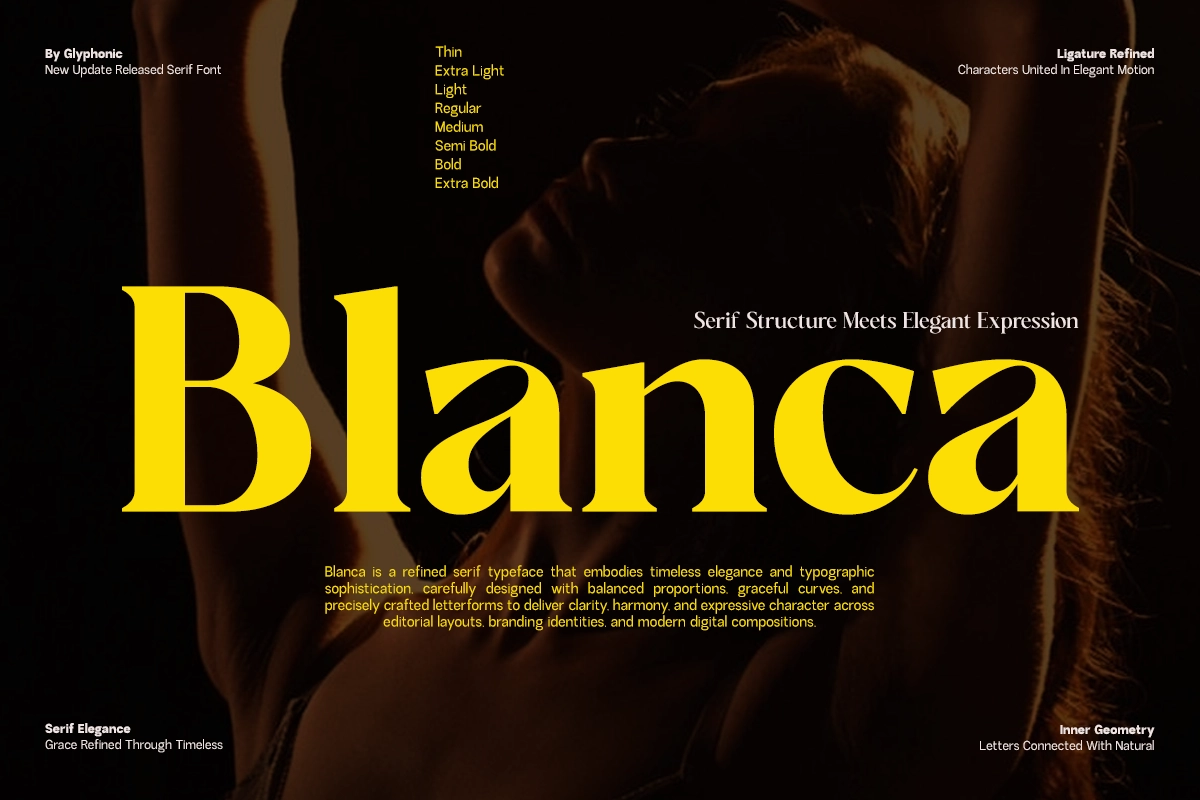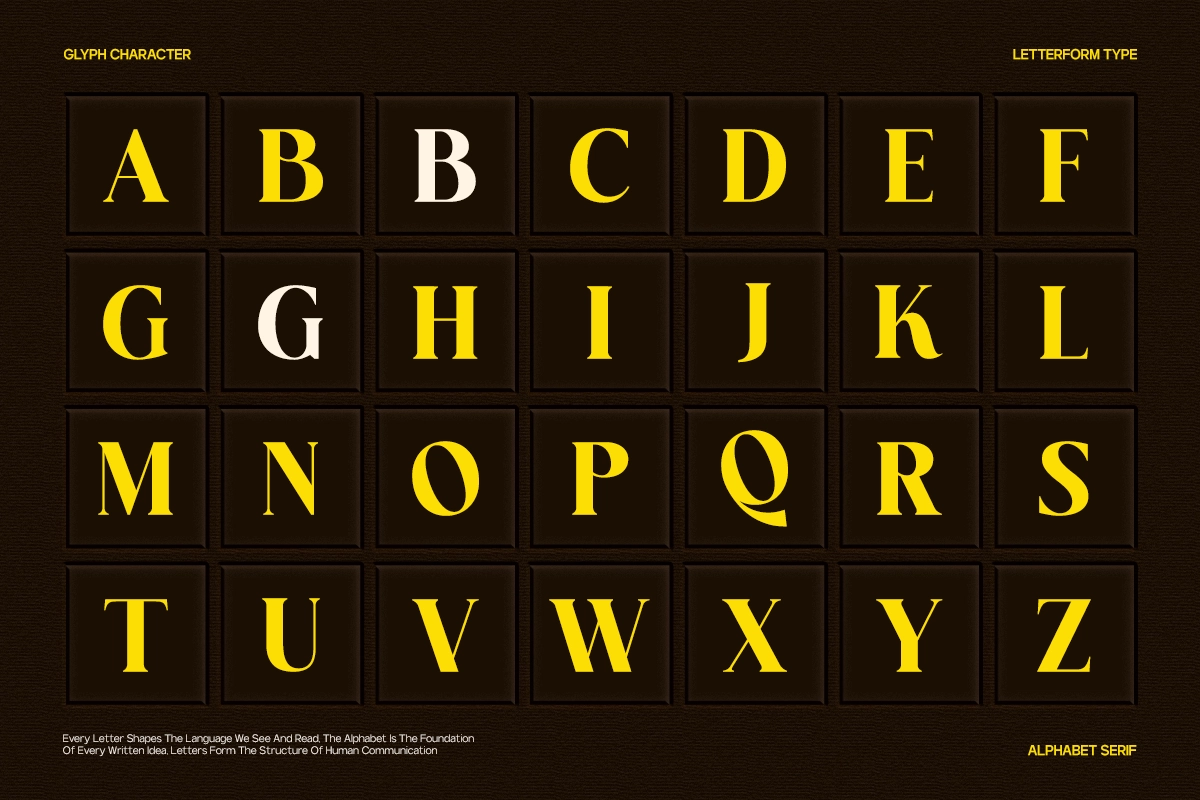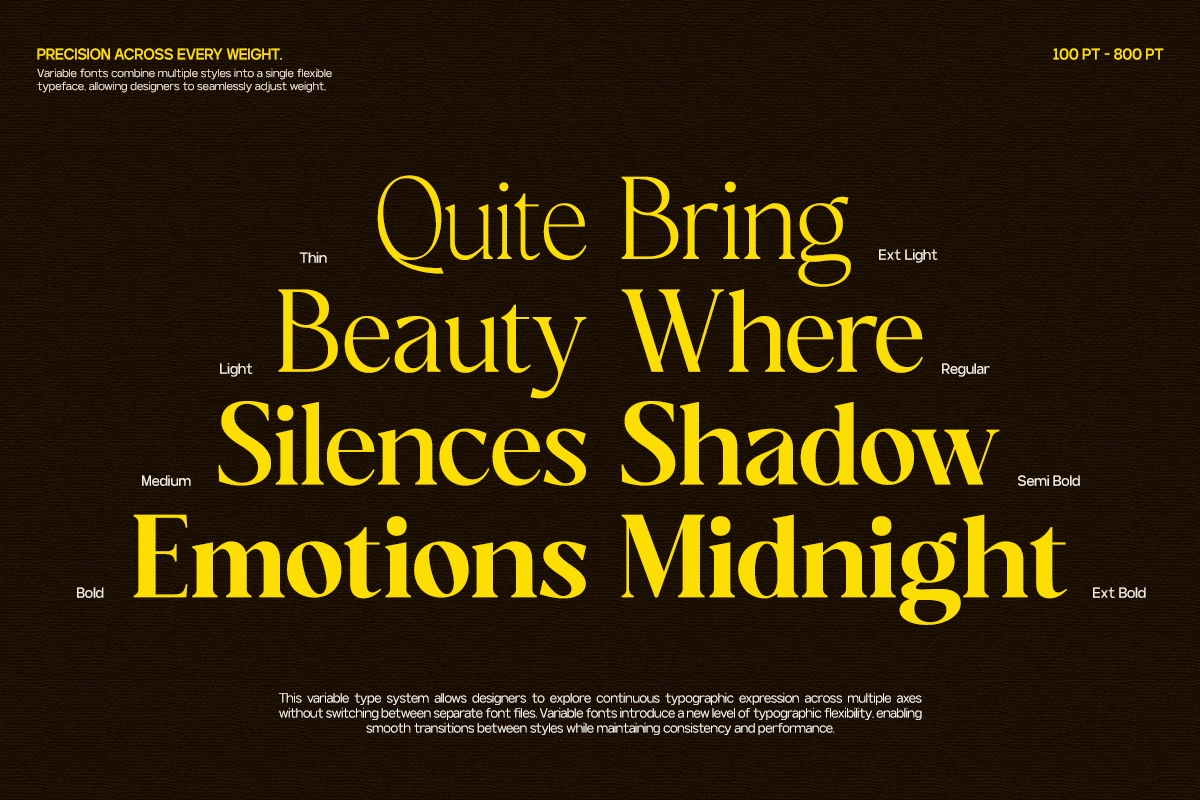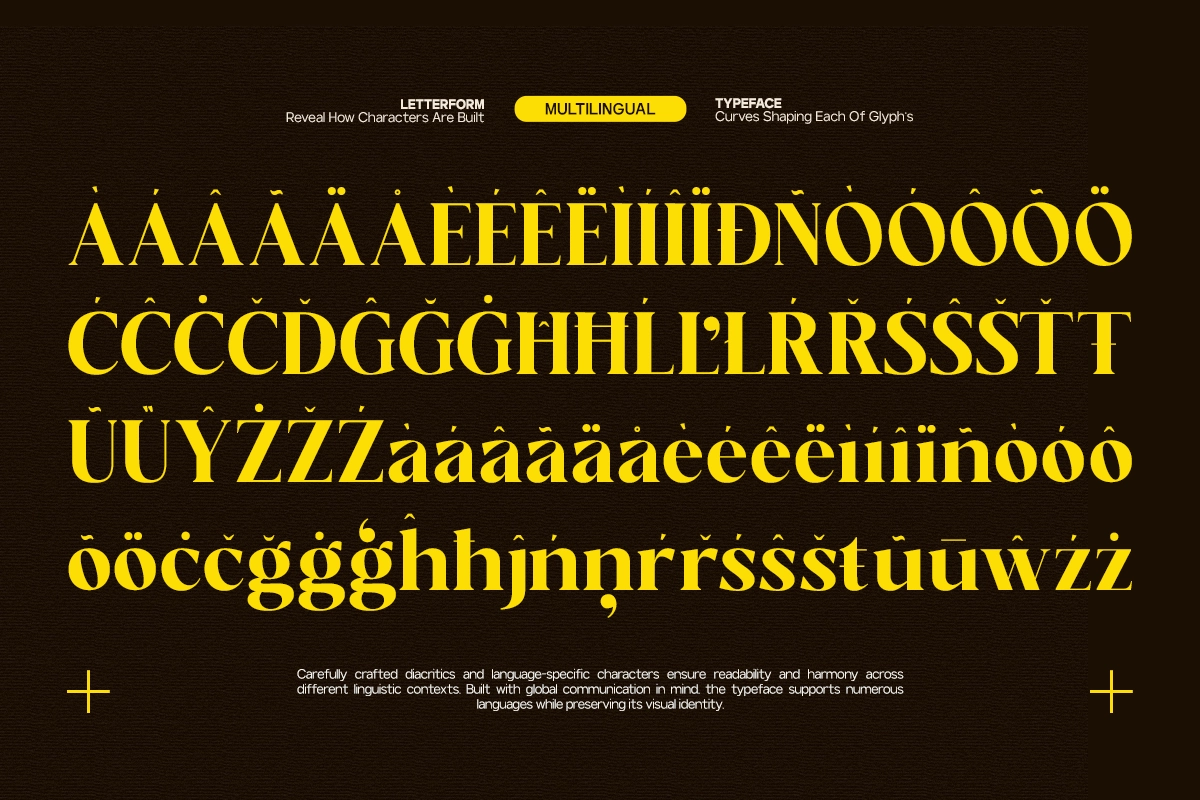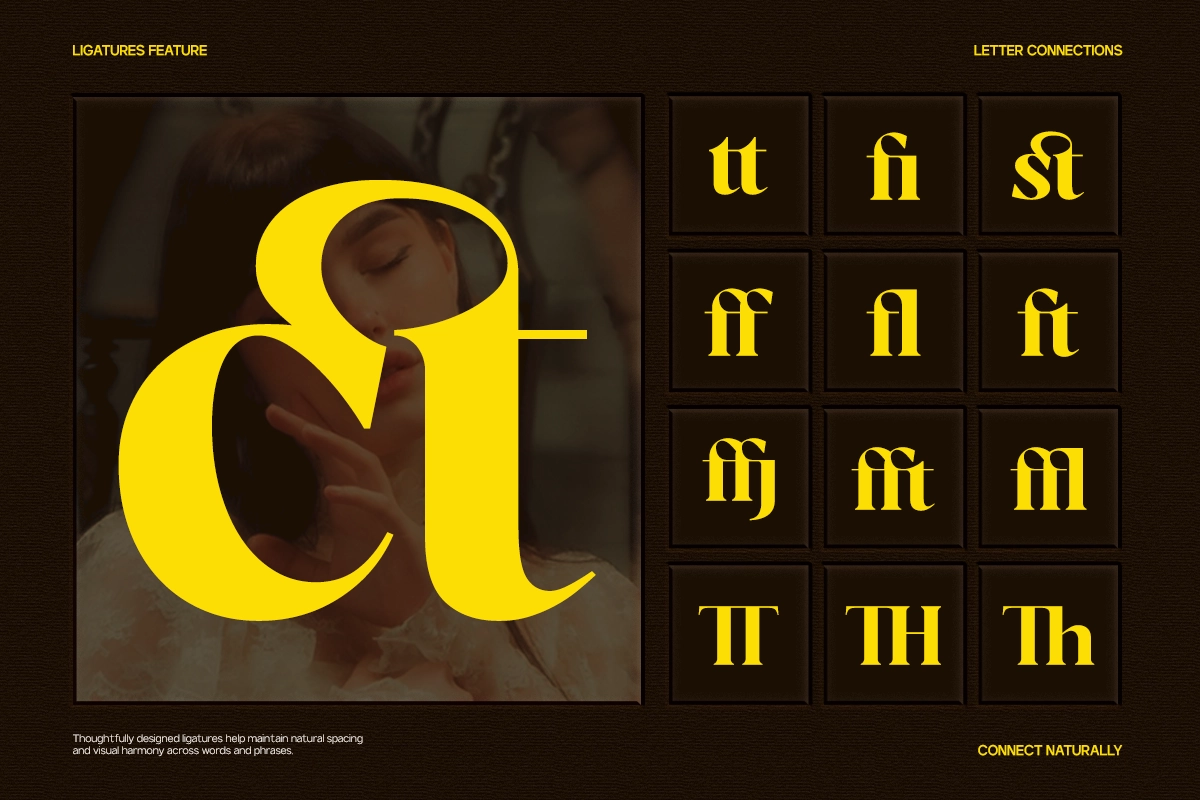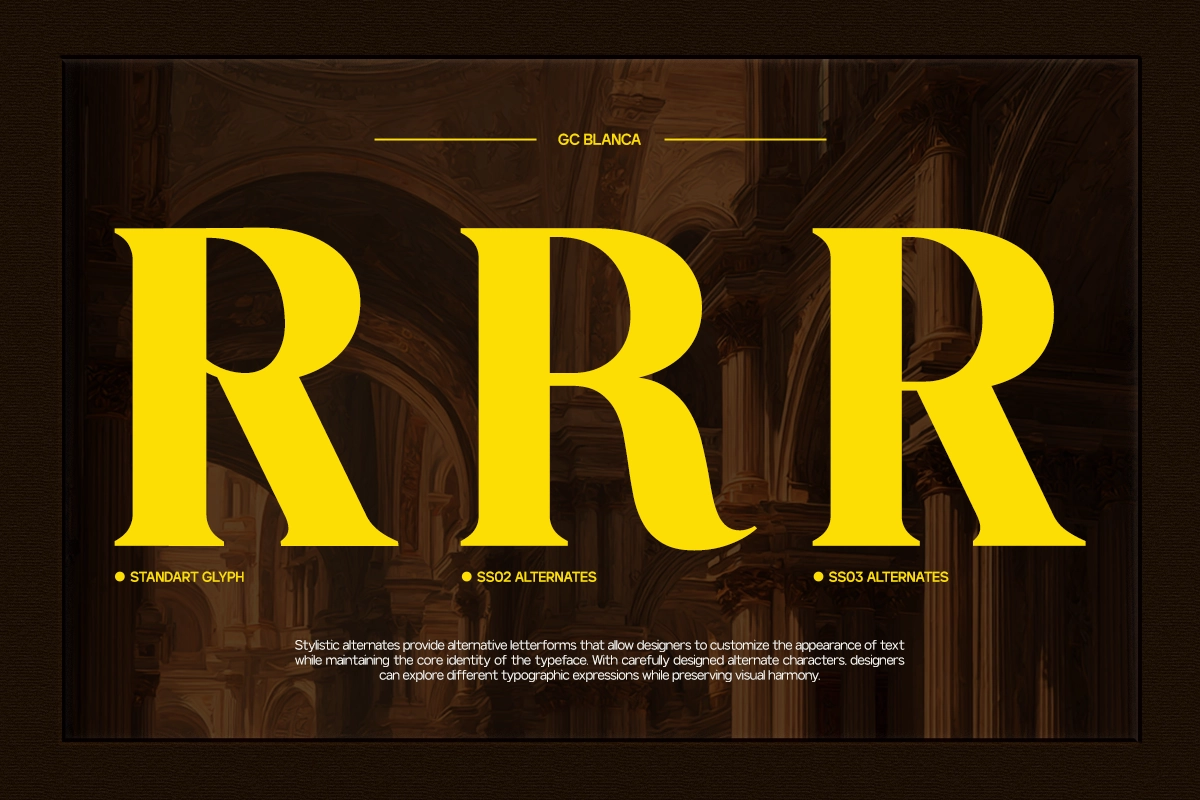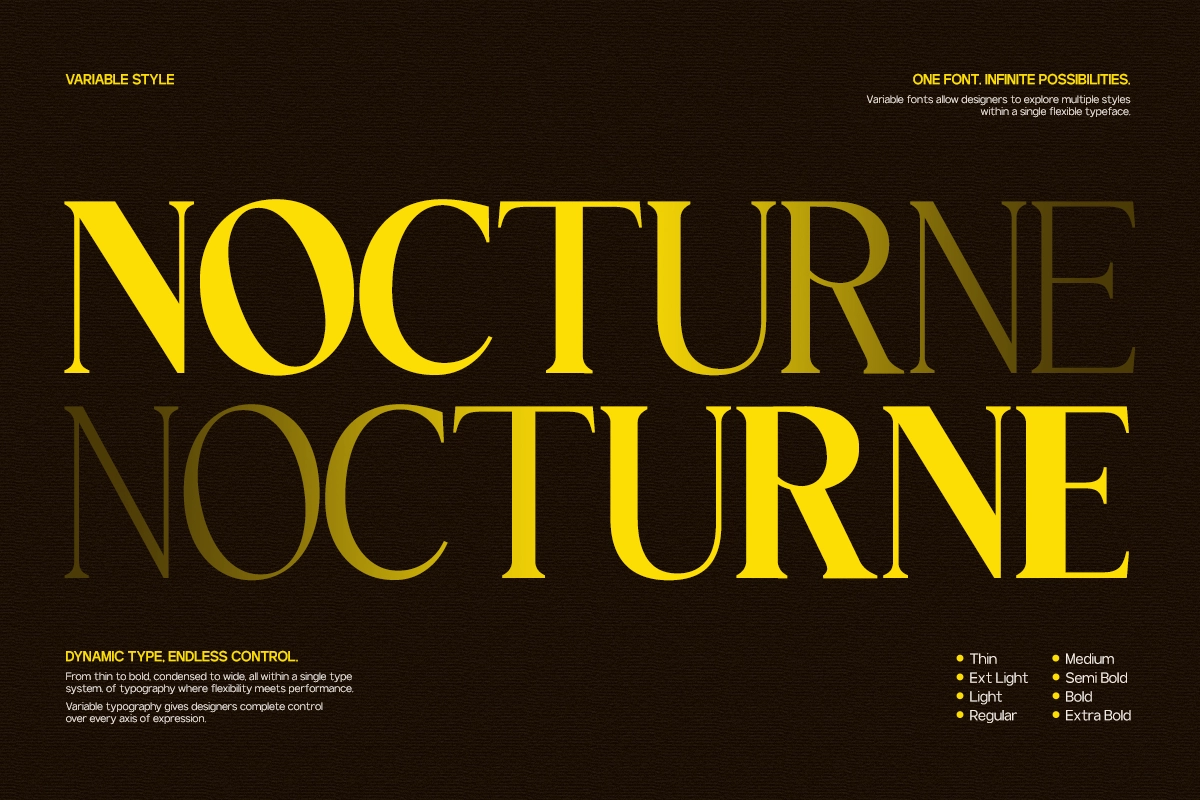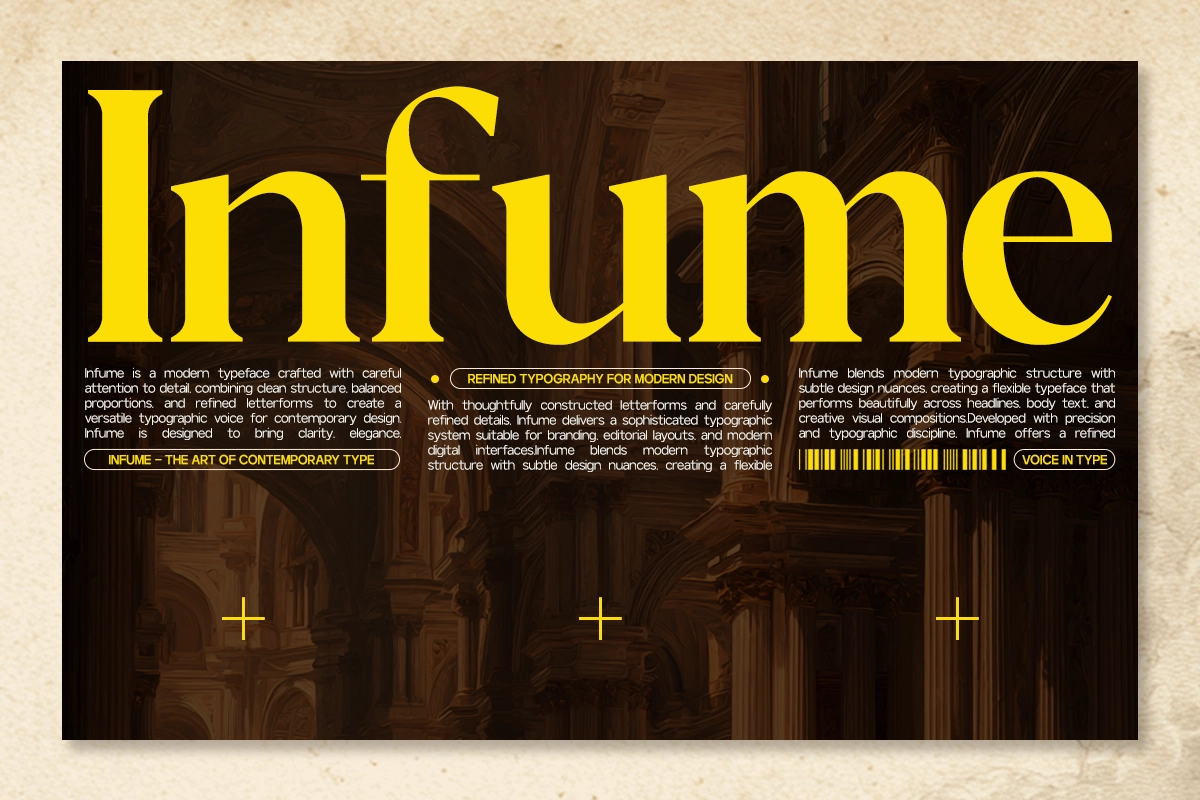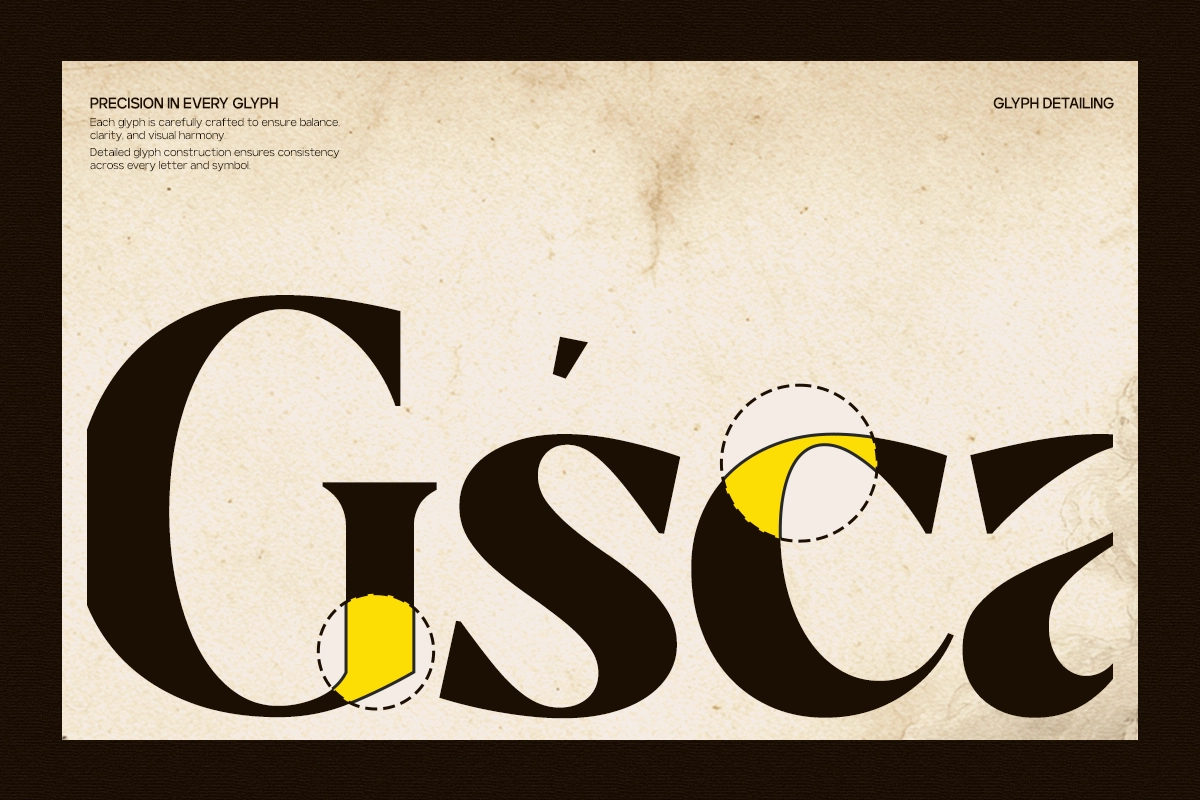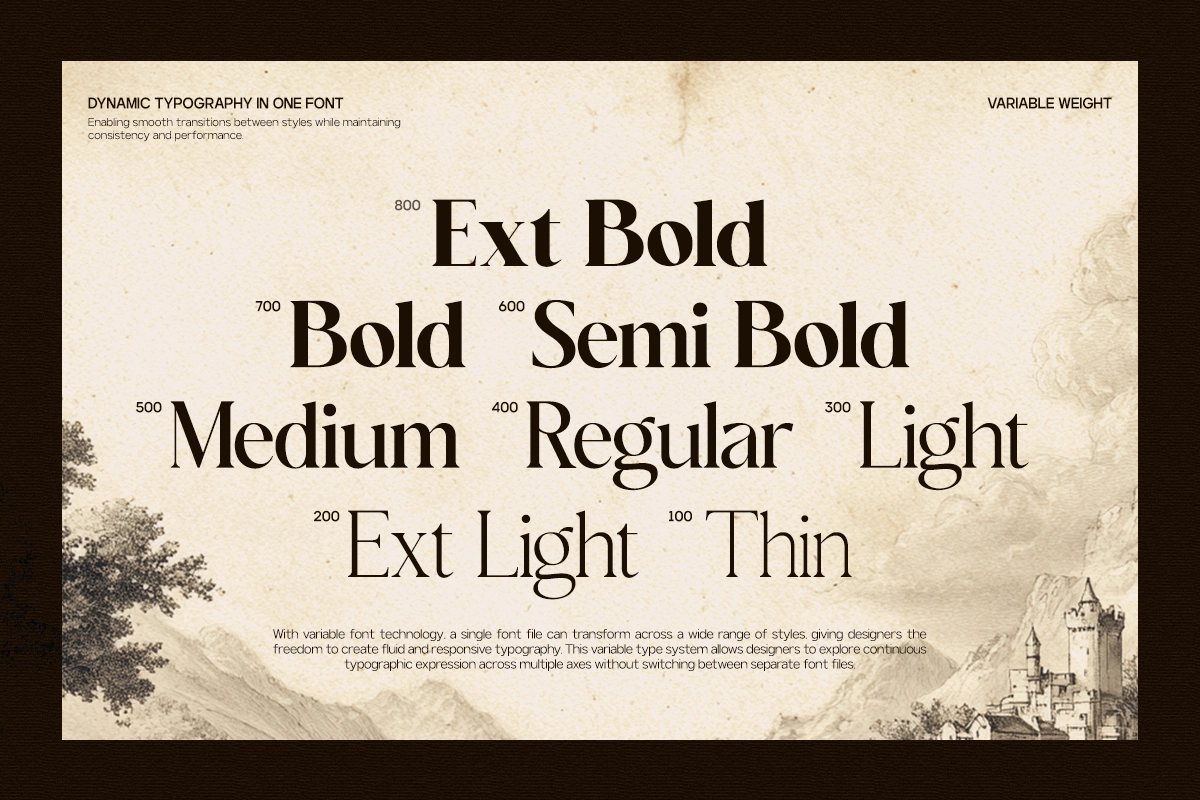
GC Blanca – Elegant Serif Display Font
This elegant serif font is cut for high-visibility typography with sharp contrast, sculpted curves, and a polished editorial tone. Its letterforms carry a formal, expressive rhythm that suits fashion-led layouts, premium branding, and statement headlines. Ligatures, alternates, and a broad weight range give the typeface a composed voice that is rich in character without losing clarity.
Blanca works beautifully for magazine covers, beauty campaigns, luxury packaging, logotypes, book jackets, invitation design, art direction decks, social media promos, poster headlines, website hero text, album covers, and refined brand presentations. The ligatures create smoother word shapes, the alternates open more styling options, and the variable system makes it easy to shift from quiet, thin typography to bold display settings in one consistent family.
- Variable font: Thin - Extra Bold
- Numbers, punctuation & symbols
- Ligatures & stylistic alternates